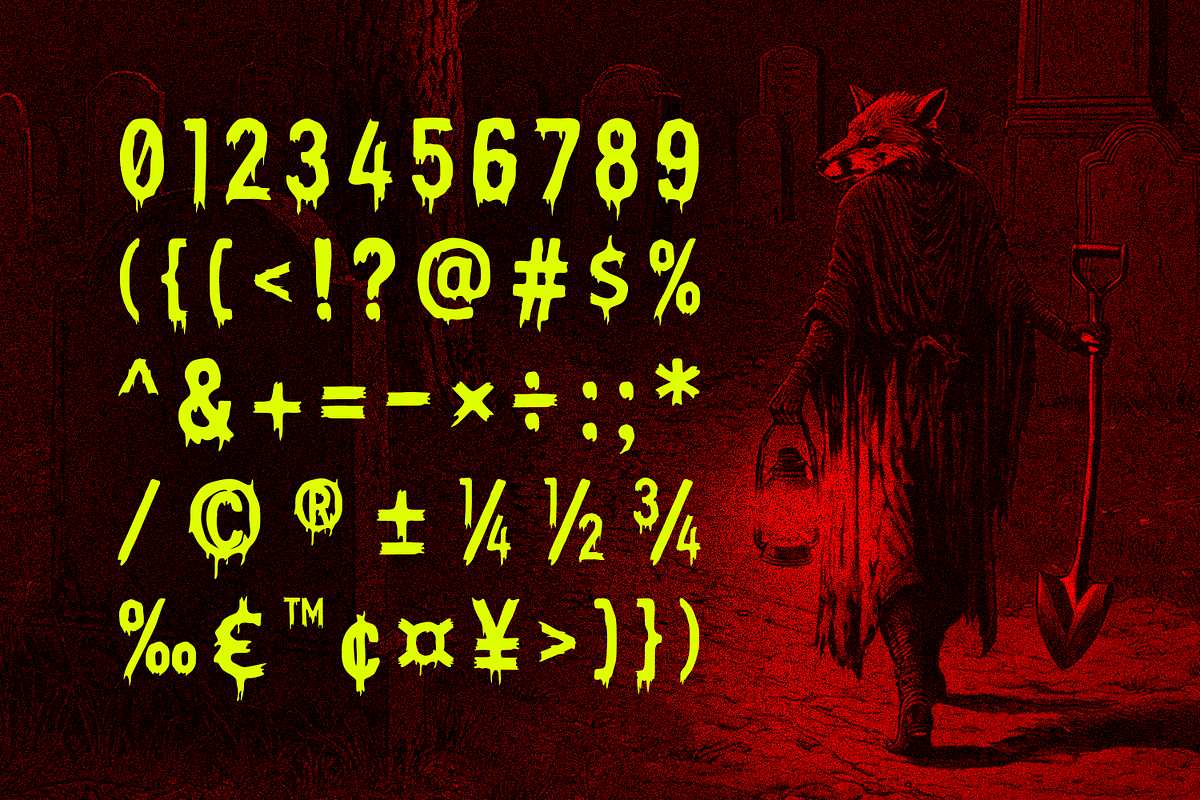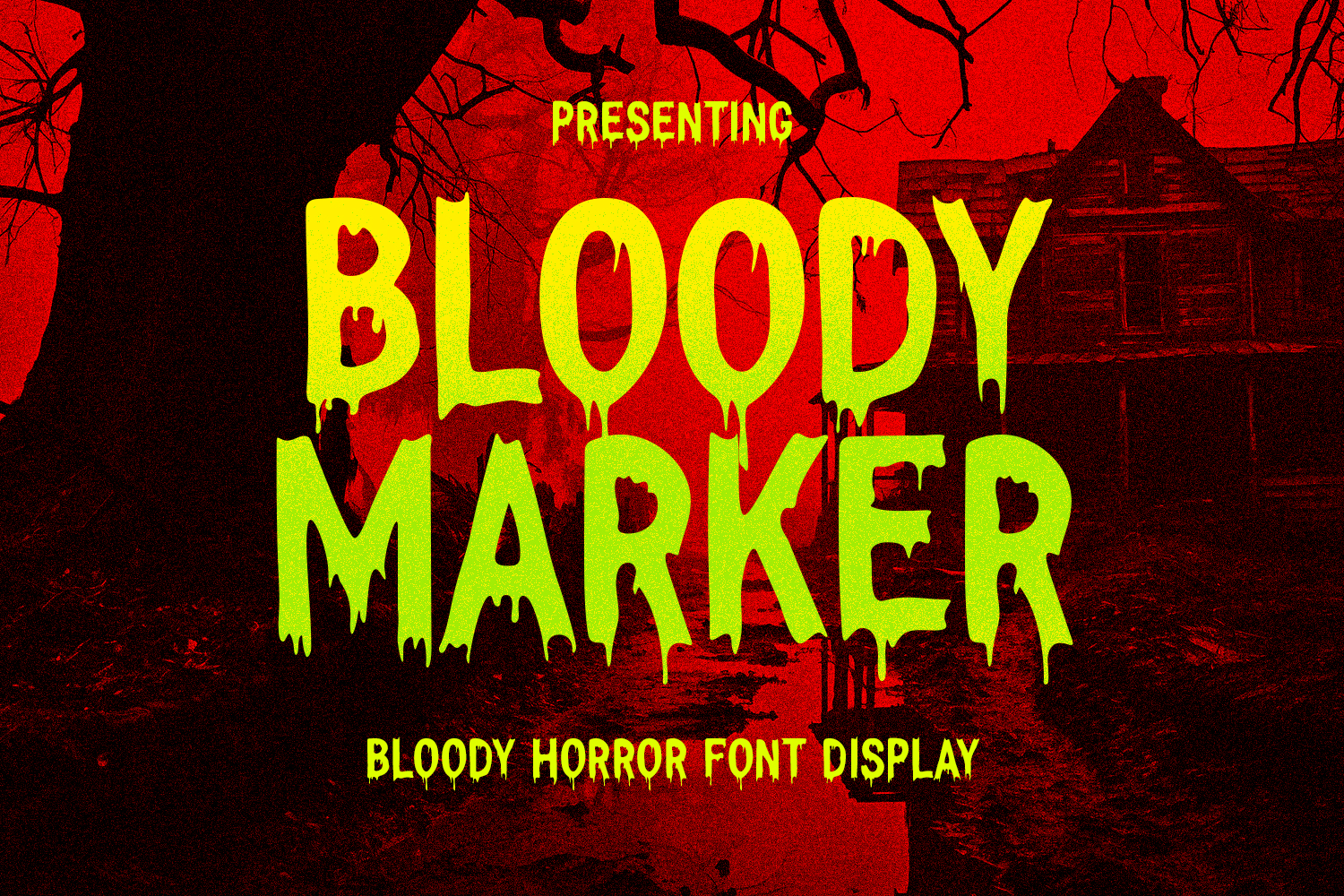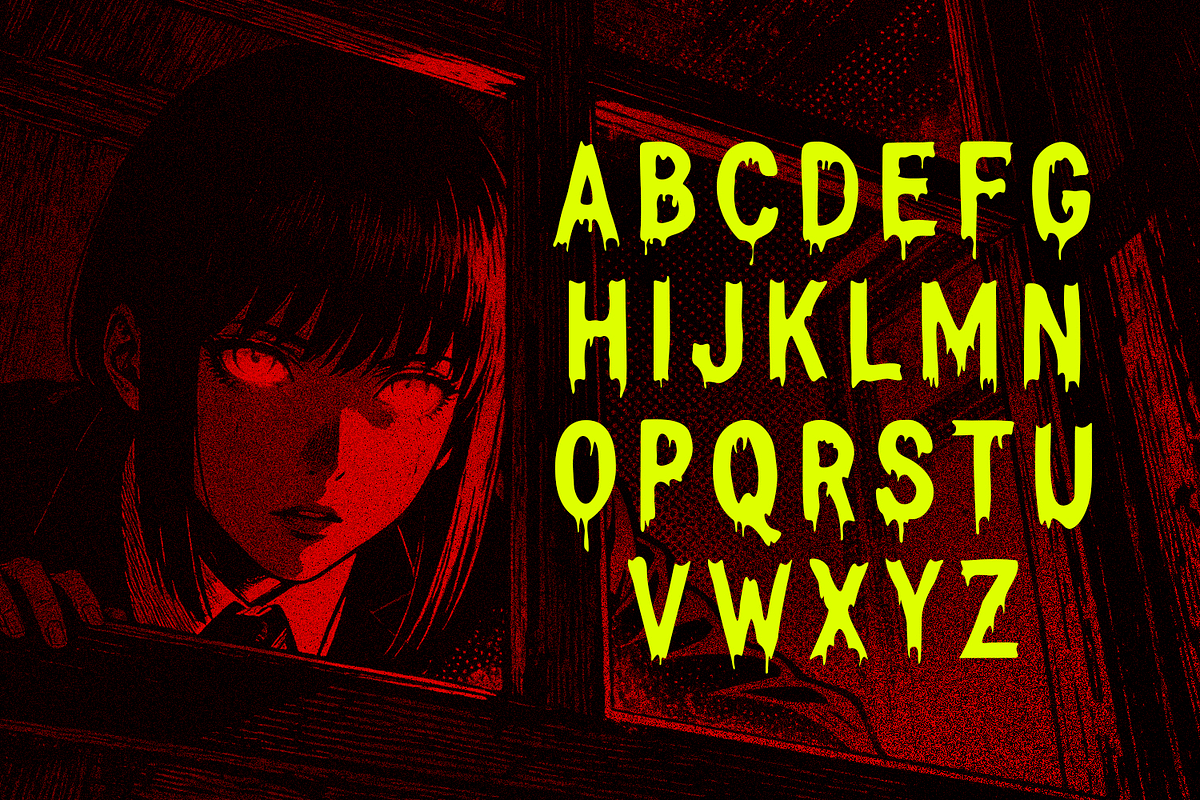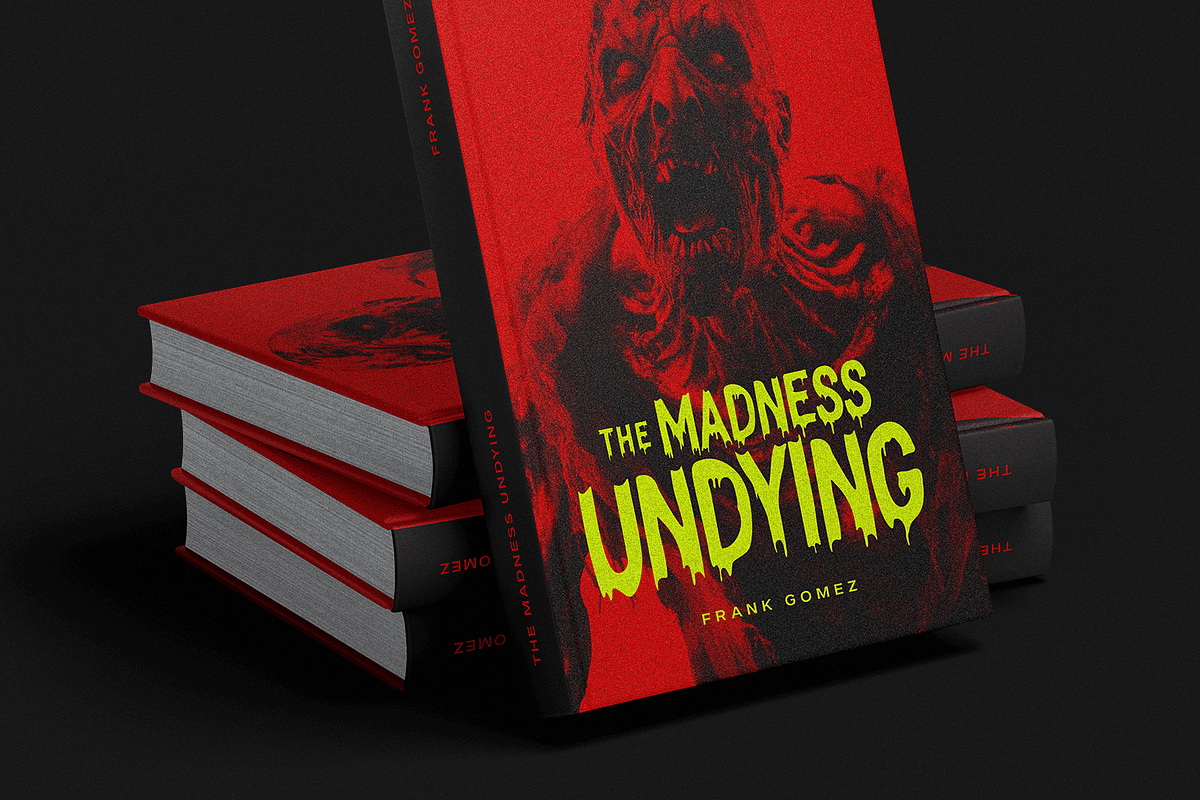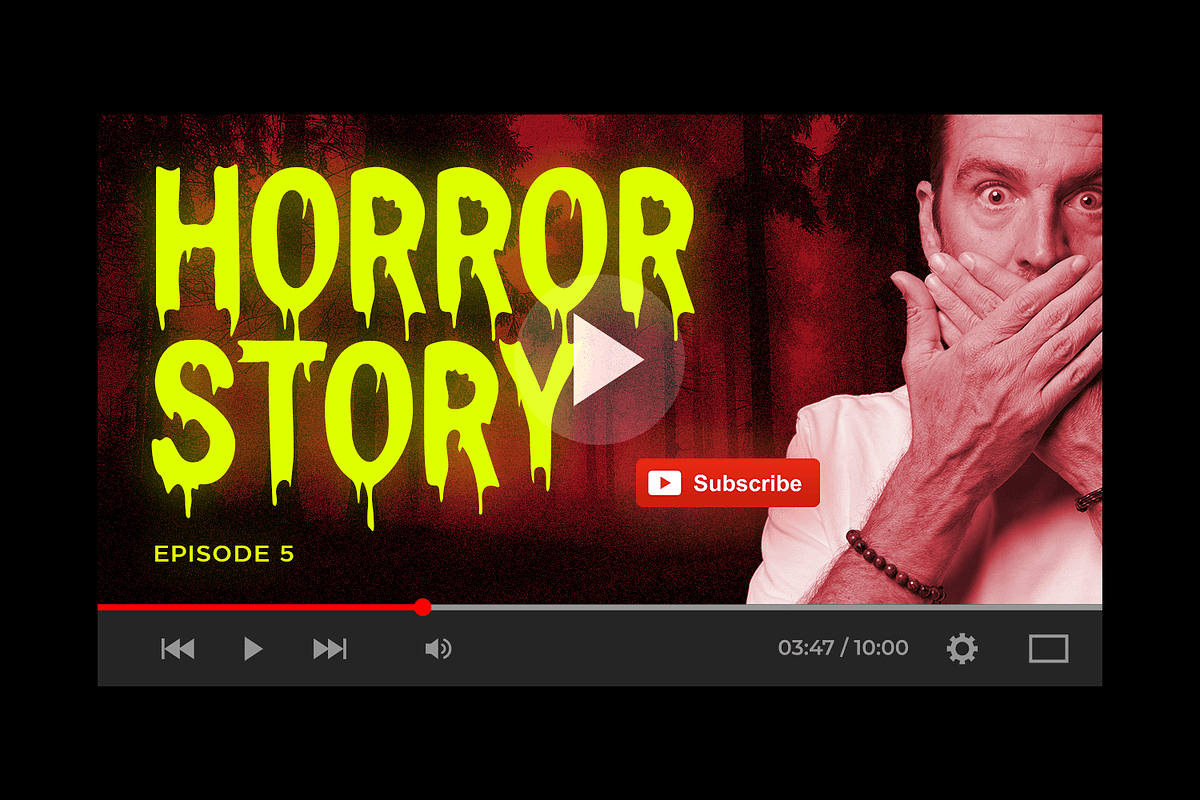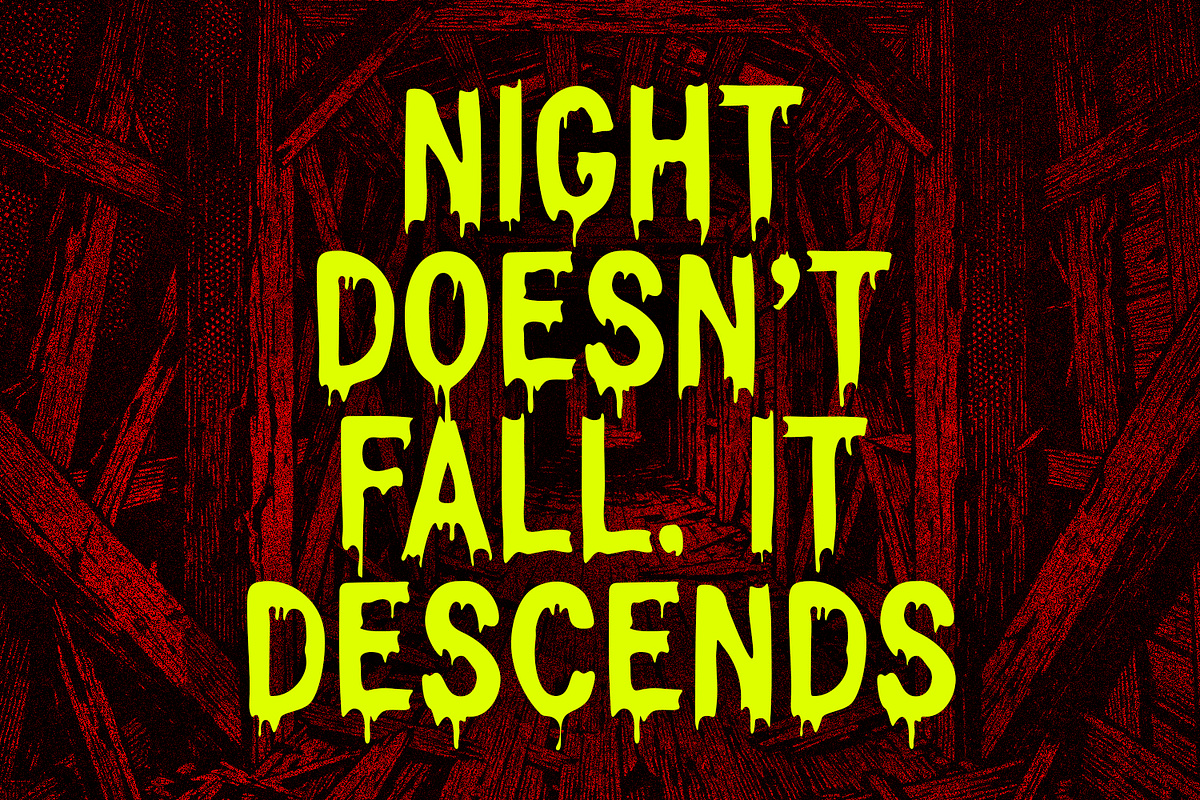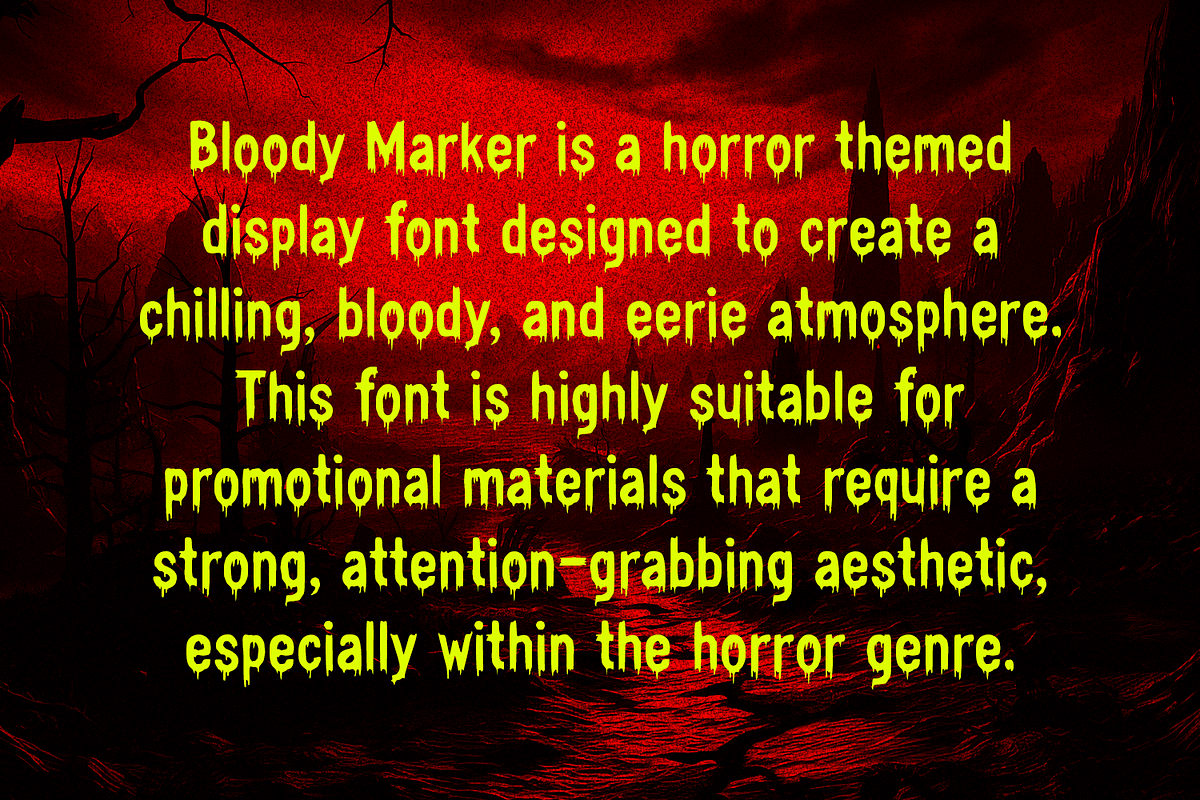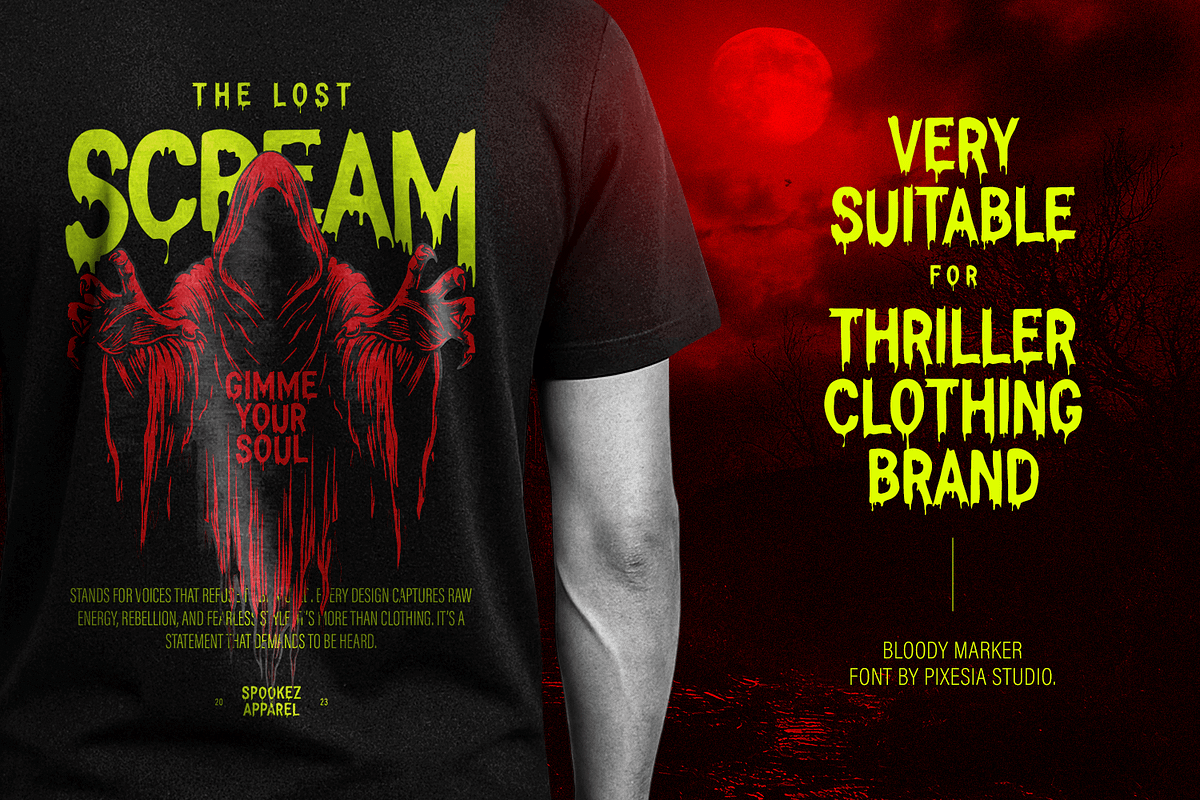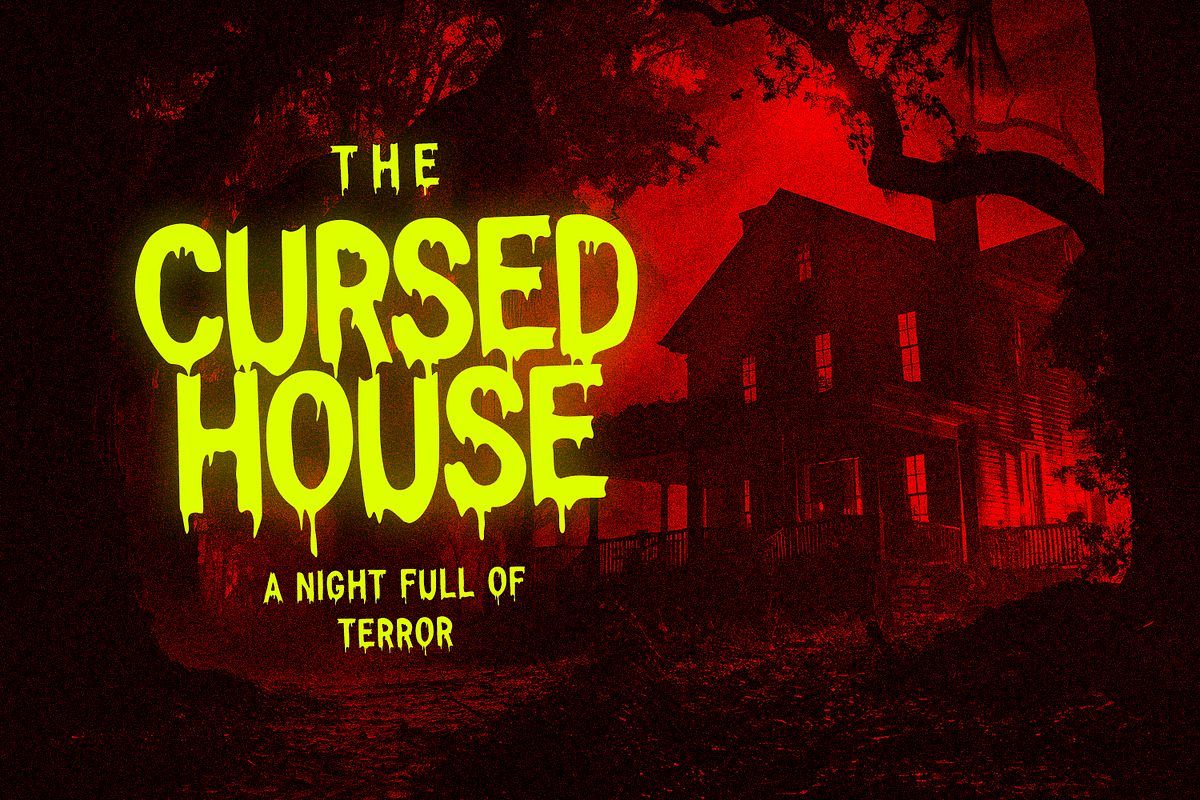
Bloody Marker Dripping Display Font
Introducing Bloody Marker - Dripping Display Font
Bloody Marker is a terrifying horror display font designed to deliver pure fear and visual impact. Featuring dripping blood effects, jagged edges, and chaotic letterforms, this typeface captures the raw intensity of classic slasher films, haunted houses, and dark horror storytelling. Every character feels alive, oozing with tension and unsettling energy.
Perfect for posters, horror movie titles, spooky branding, haunted attractions, game covers, and thriller artwork, Bloody Marker instantly creates a chilling atmosphere. Whether you're designing a scream-worthy headline or a blood-curdling logo, this font ensures your visuals look dangerous, creepy, and unforgettable.